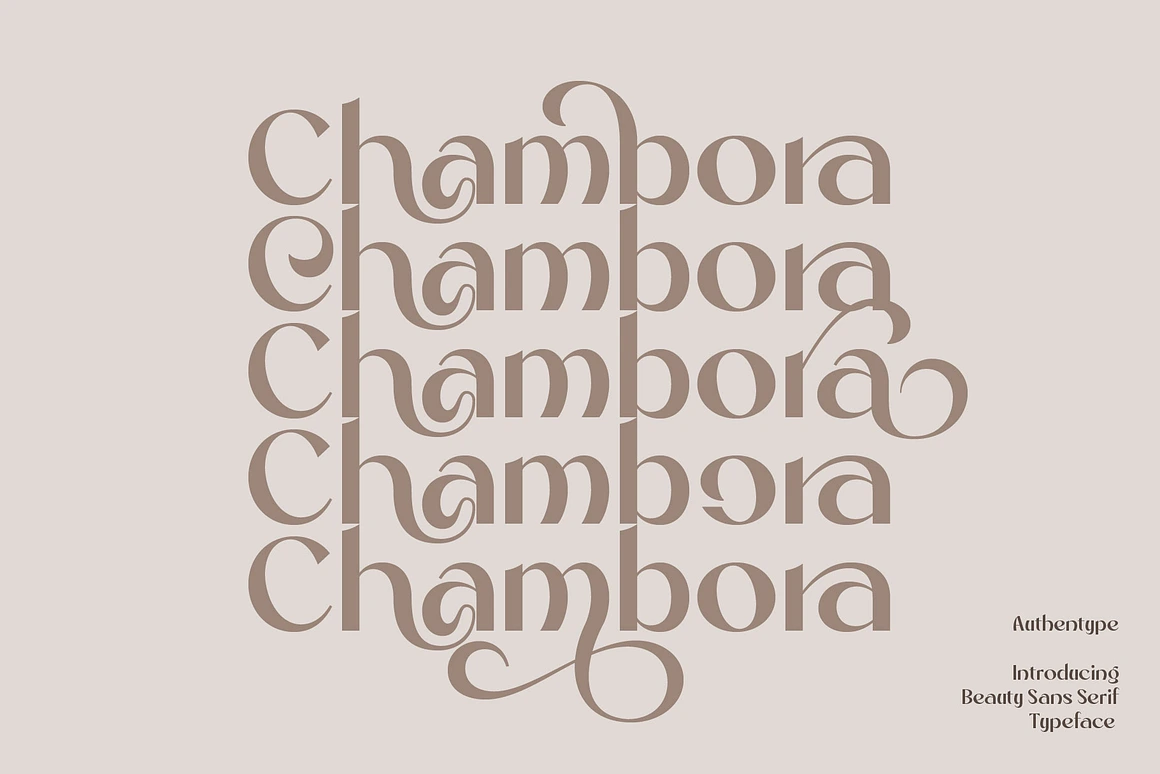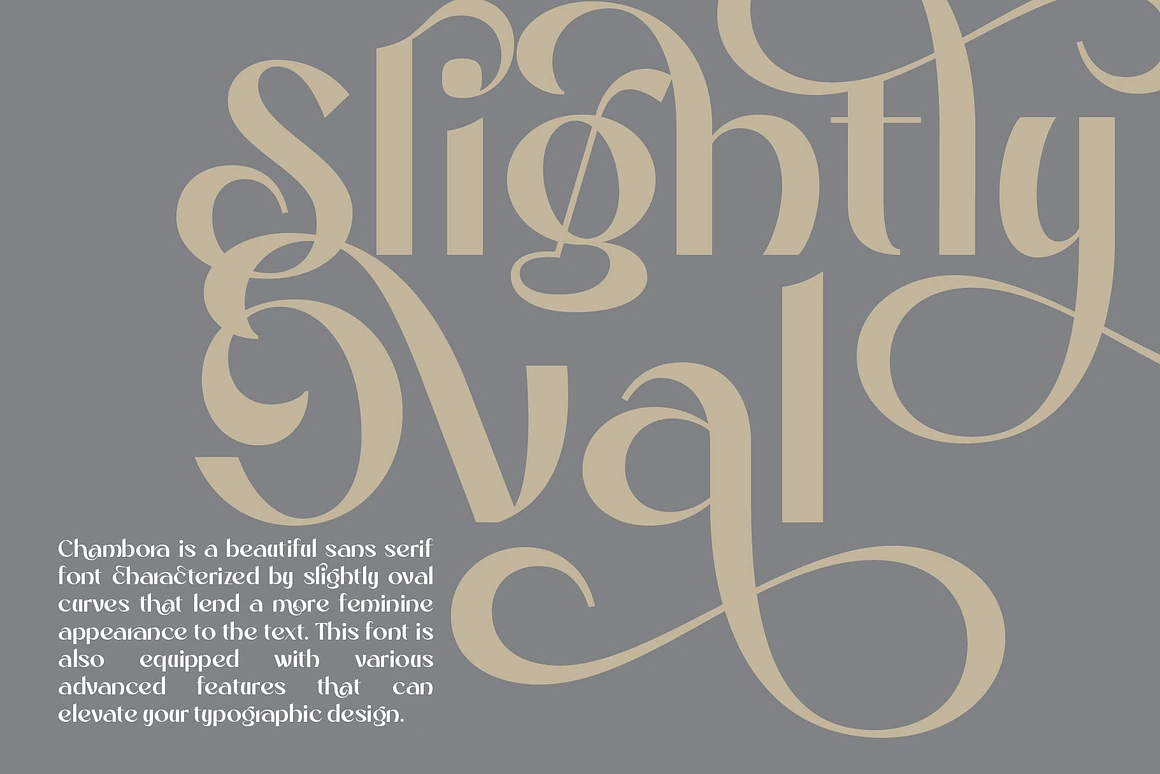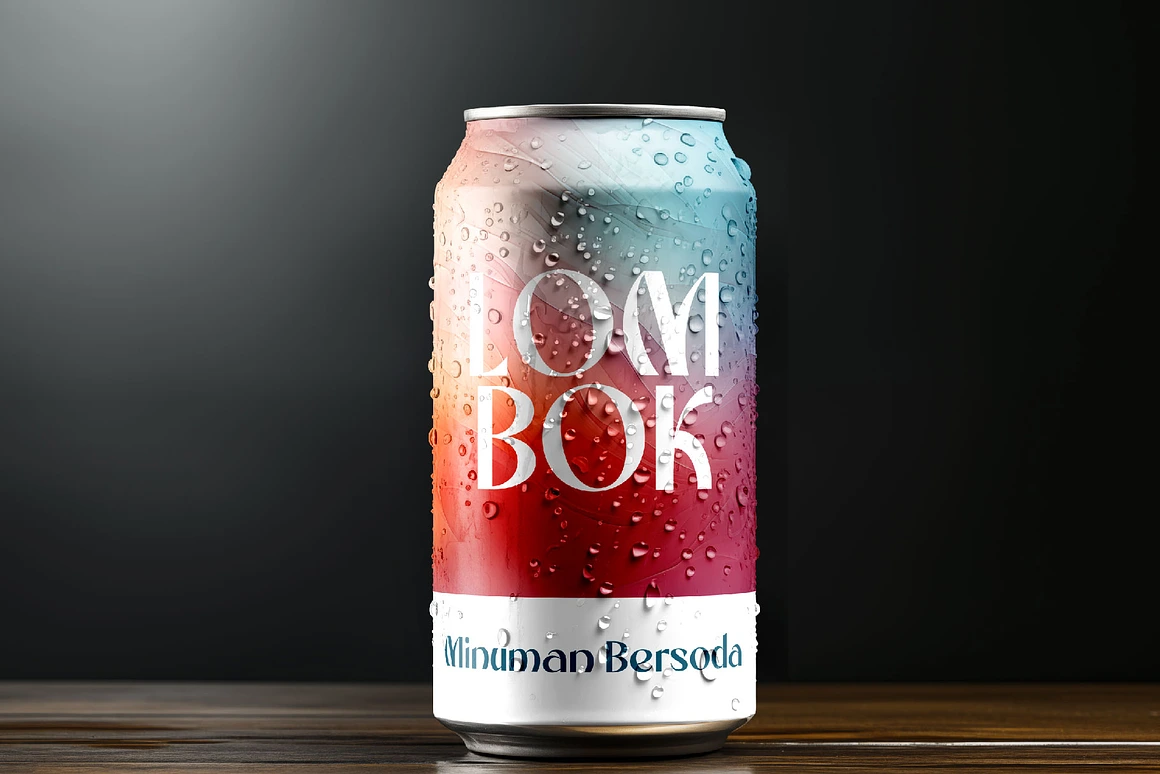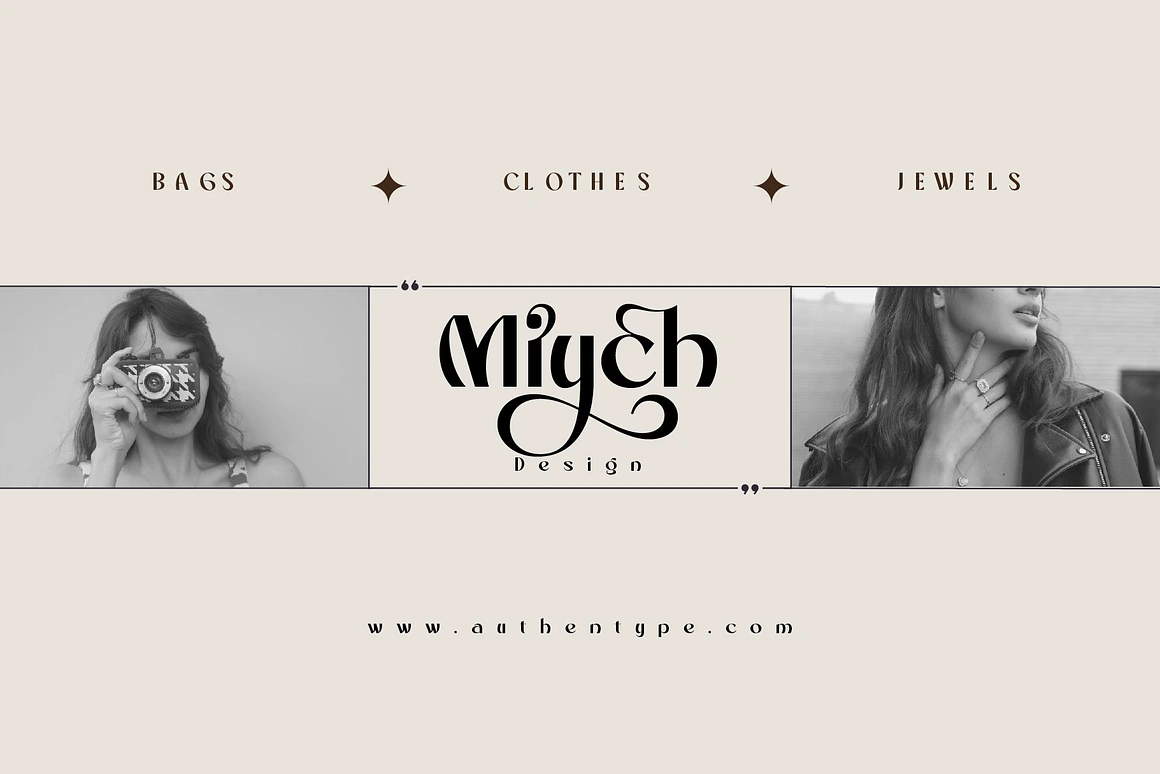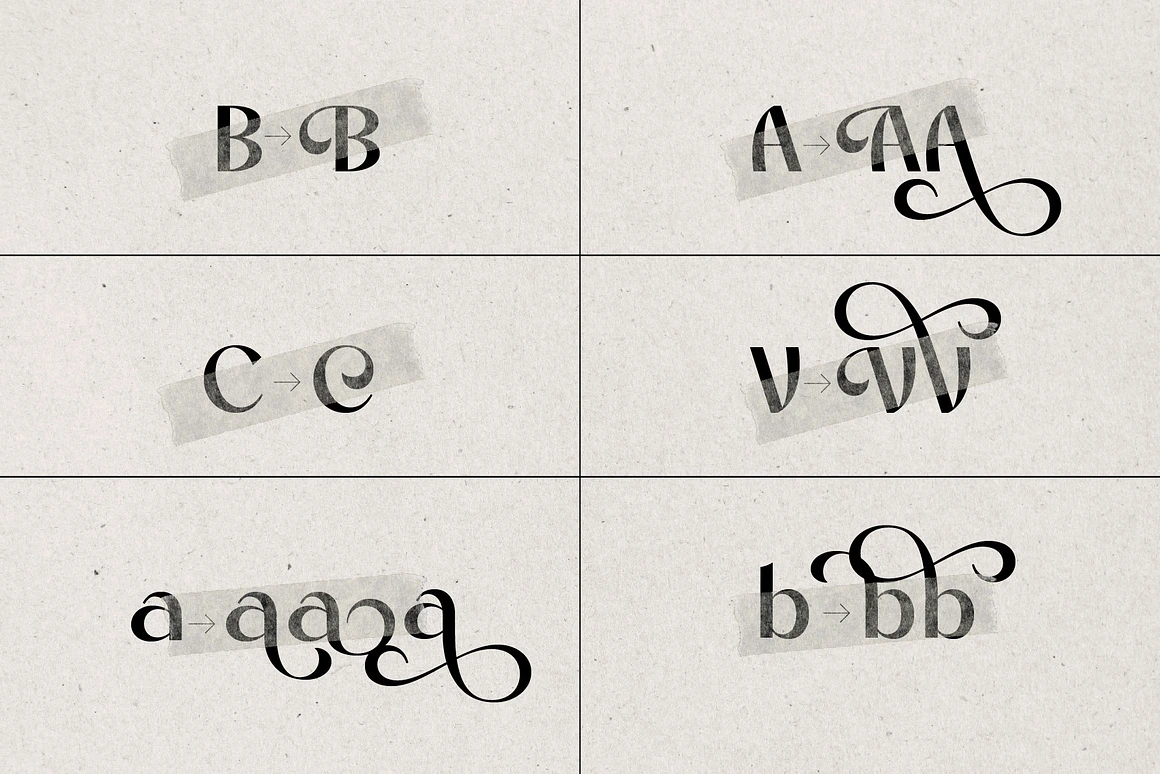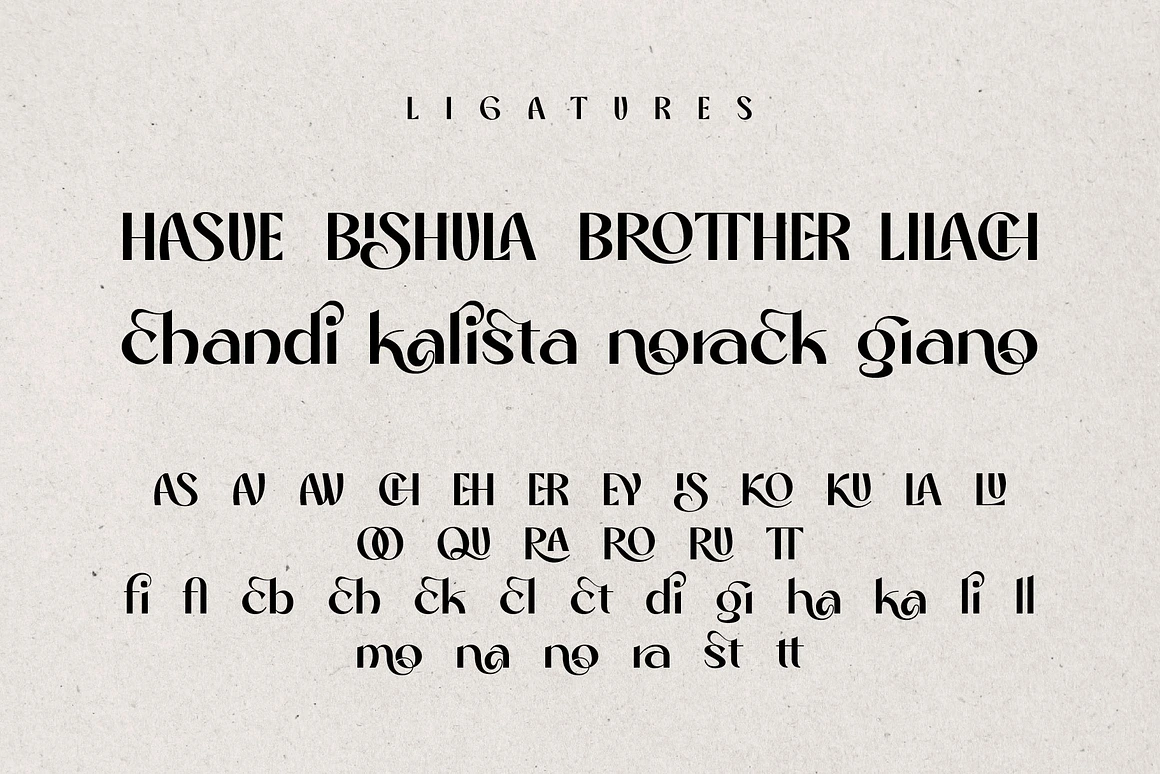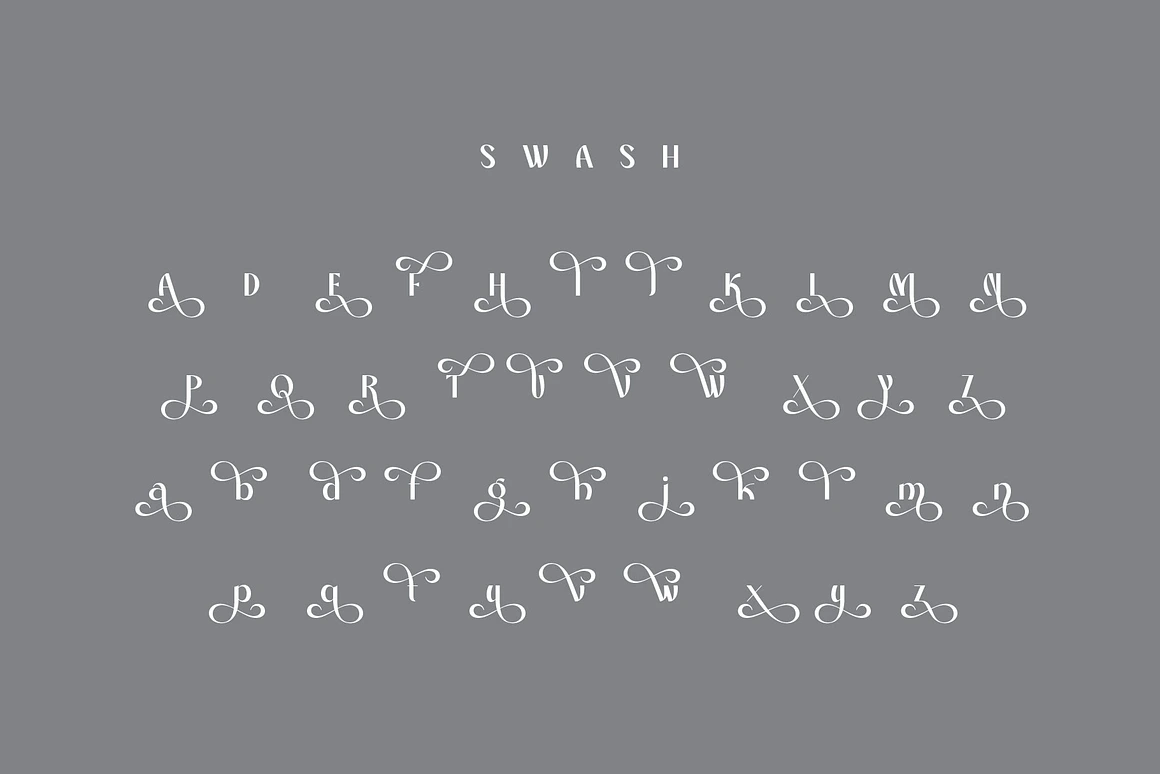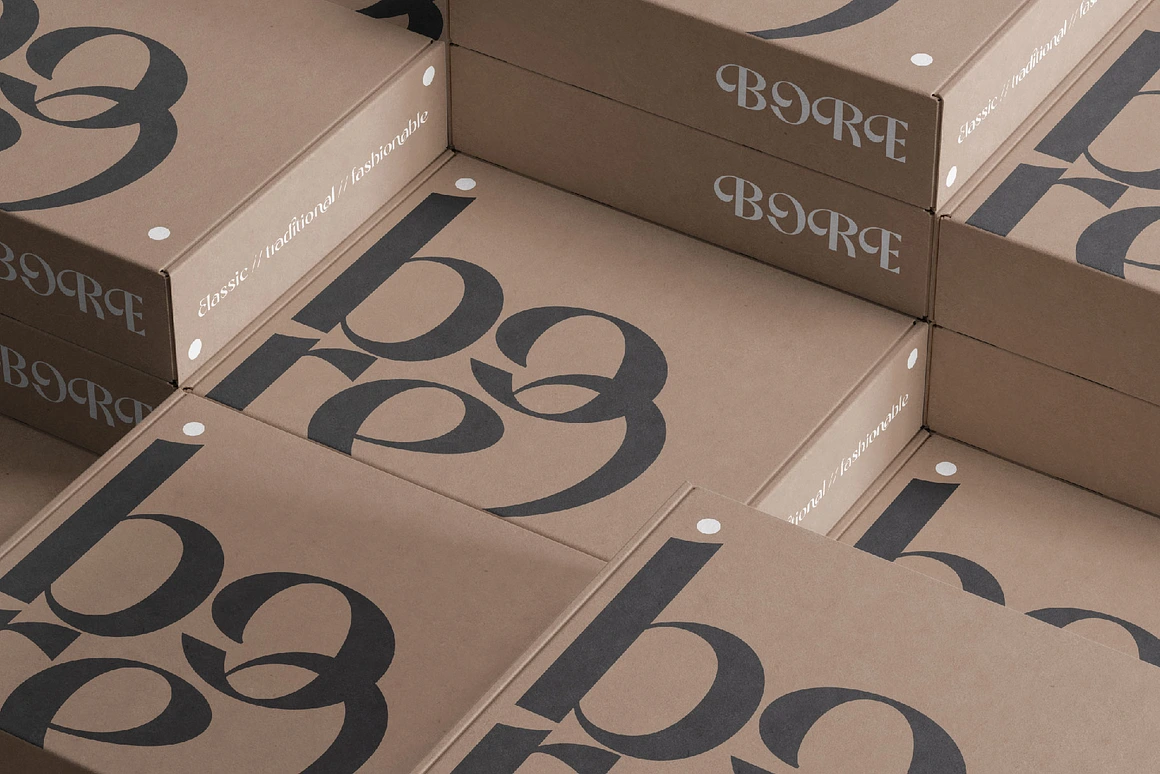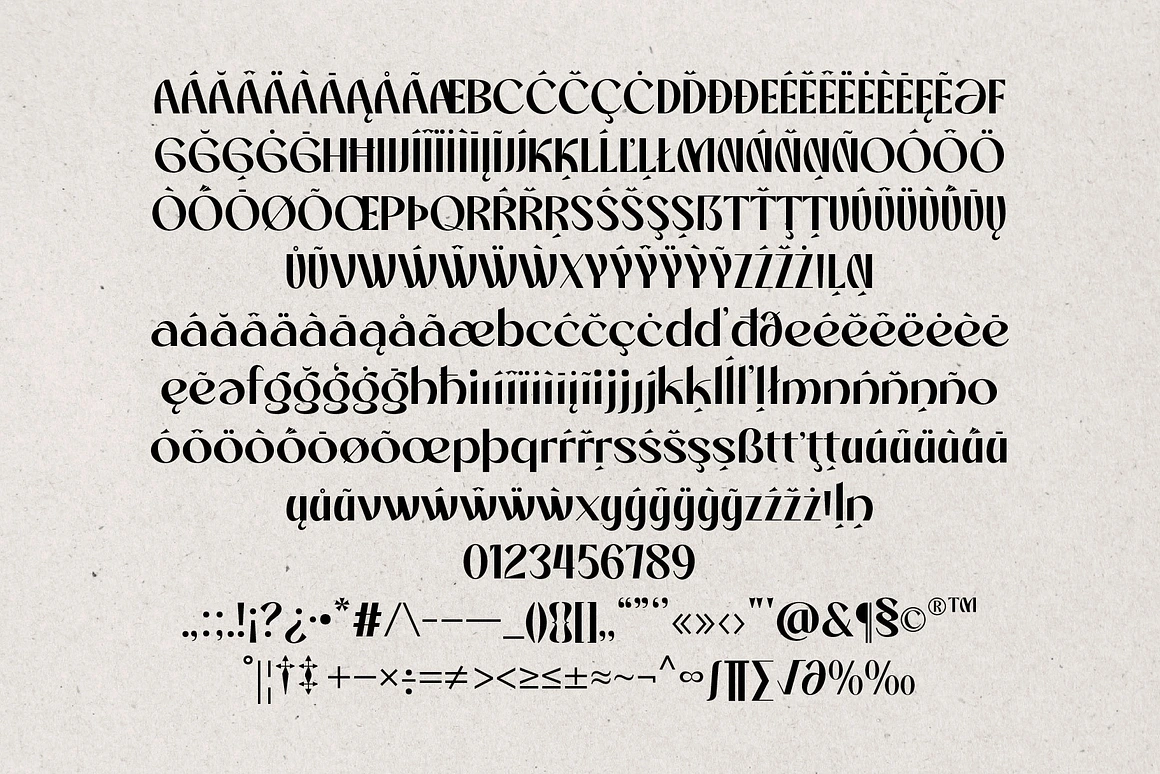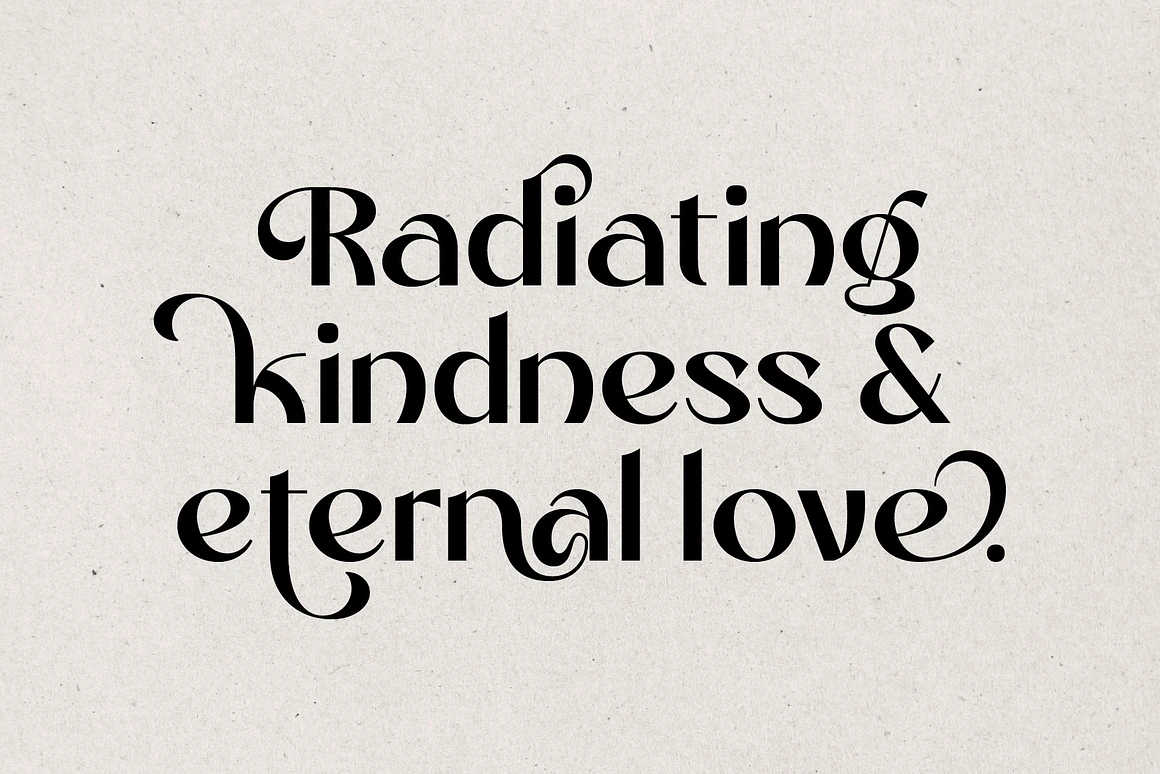
Chambora Beautiful Sans Serif
Chambora is a beautiful sans serif font characterized by slightly oval curves that lend a more feminine appearance to the text. This font is also equipped with various advanced features that can elevate your typographic design.
These features include:
Chambora is a beautiful sans serif font
– Swash: This feature adds a decorative touch to the letters, making them look more elegant and attractive. Swash elements can enhance the aesthetic appeal subtly, making it ideal for designs requiring a touch of extra flair.
– Stylistic Sets: Stylistic sets allow you to select different variations of letterforms, providing flexibility to match typographic styles with your design theme. This feature enables the creation of a more unique and personalized look.
– Ligature: Ligatures combine two or more letters into one harmonious character. This feature not only enhances the aesthetics of the typography but also improves readability and the overall appearance of the text.
By integrating these features, Chambora offers a wide range of possibilities to enhance the visual appeal of any typography design project, from branding, invitations, and posters to digital media. These features enable designers to create work that is not only functional but also artistic and engaging.